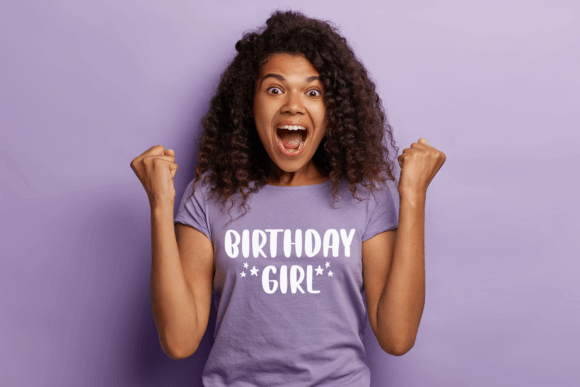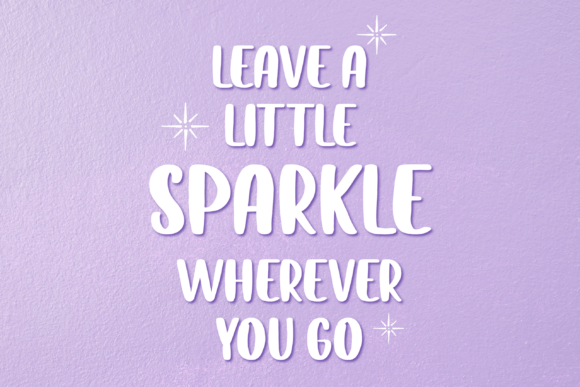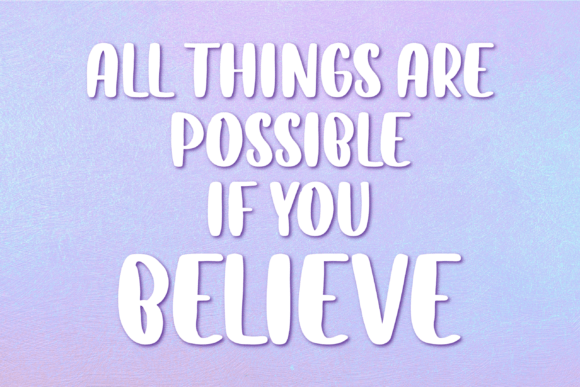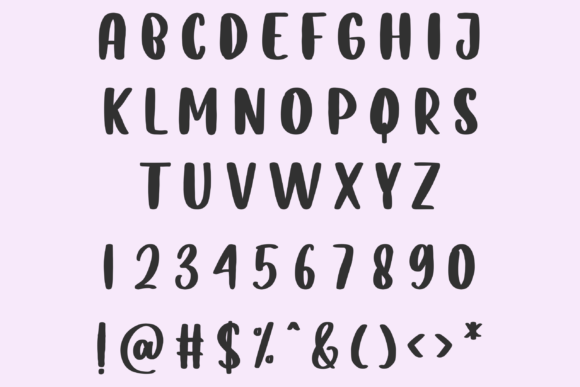
Magic Markers Font
Playful Uppercase Font for Bold and Fun Design Projects
When you’re looking for a typeface that’s bold, clean, and full of personality, Magic Markers is the perfect fit. This playful uppercase font is designed for impact, making it ideal for projects that need attention-grabbing text. With its all-caps style and simple structure, Magic Markers offers versatility and clarity while maintaining a fun, creative vibe.
Whether you’re designing a classroom poster or a social media graphic, this font will instantly elevate your layout.
Discover Magic Markers: Clean, Fun, and All-Caps
Magic Markers features uppercase handwritten letters that are both casual and professional. It’s perfect for when you want your typography to feel approachable yet structured. As a result, this playful uppercase font works well in a wide variety of design applications.
Use it for:
• Posters and banners
• Greeting cards and DIY crafts
• YouTube thumbnails and social posts
• Children’s books and school projects
• Labels, packaging, and signage
• Canva templates and printables
Its bold all-caps style gives your message strength, while the hand-drawn aesthetic adds a personal touch.
Why Designers Choose Magic Markers
Magic Markers is loved for its balance between structure and spontaneity. It stands out while remaining legible and flexible. Here’s why creators keep reaching for it:
• All-caps format for consistent visual impact
• Clean strokes with a hand-drawn look
• Great legibility in large and small sizes
• Perfect for both digital and print projects
This playful uppercase font is designed to be noticed — without overwhelming your content.
Ideal for Teachers, Designers, and Content Creators
Magic Markers is especially useful for creators who need a font that’s readable, fun, and bold. It’s commonly used by:
• Teachers designing classroom materials
• Content creators making thumbnails and graphics
• Etsy sellers offering printable designs
• Bloggers and influencers who need playful headings
• DIY fans crafting posters, cards, and decor
Because of its all-caps style, it brings consistency and boldness to every line you write.
Magic Markers is more than just a fun typeface — it’s a tool for bold communication. Its simplicity, combined with a hand-lettered charm, gives it wide appeal for both casual and professional projects. If you’re ready to enhance your visuals with confidence and character, this playful uppercase font is a must-have.